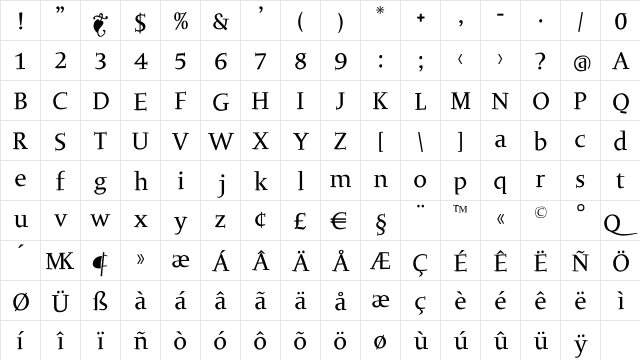
OliJo Regular
Design Context for OliJo Typeface
OliJo offers clean, dependable letterforms without strong stylistic allegiance, making it a practical choice for designers who need flexibility.
Pro Tip: Use OliJo in both headline and body roles to test its range before committing to a single application.